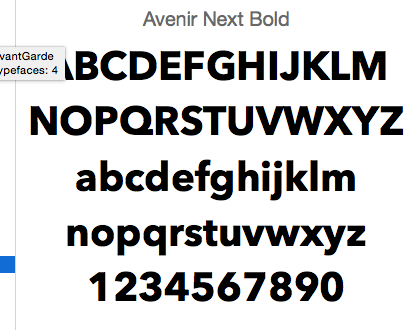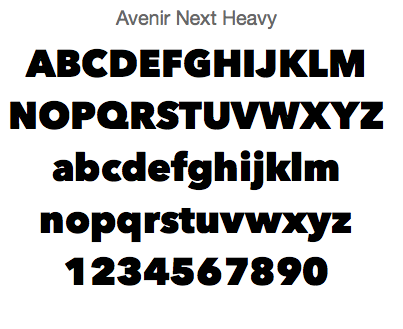
I'd love to find out what font this is...
I'll attempt to attach the only example I have of it (it's a screen grab).
It appears to be a combination of weights from the Avenir Next font family, some additional type manipulation... and then 'roughed" up. The "L" is altared. Notice the two "F"s are different in texture. also, look at the shape of the lower case "a".